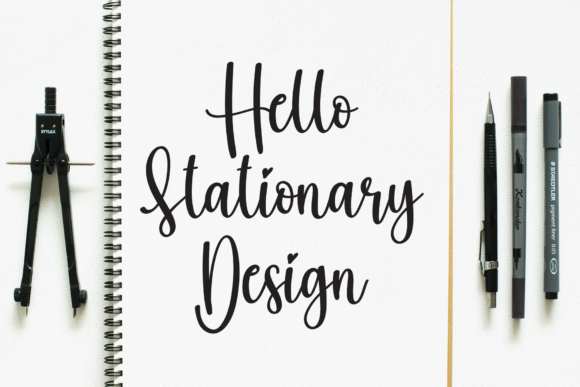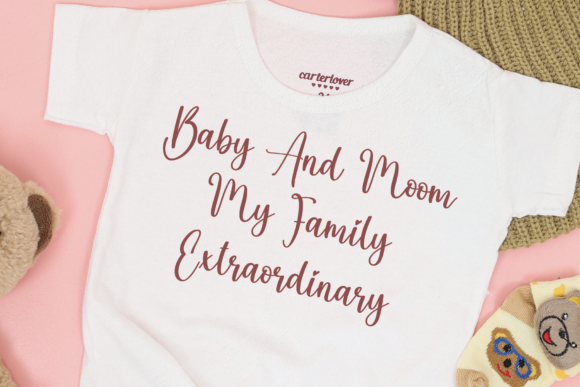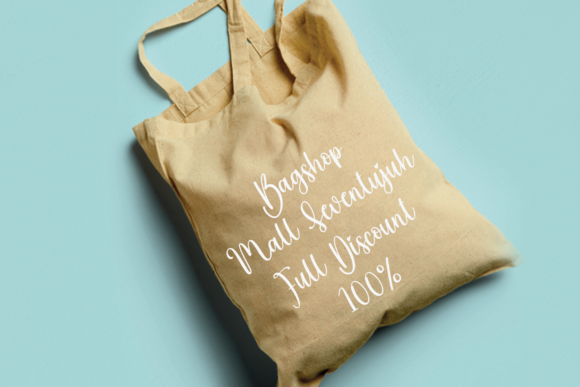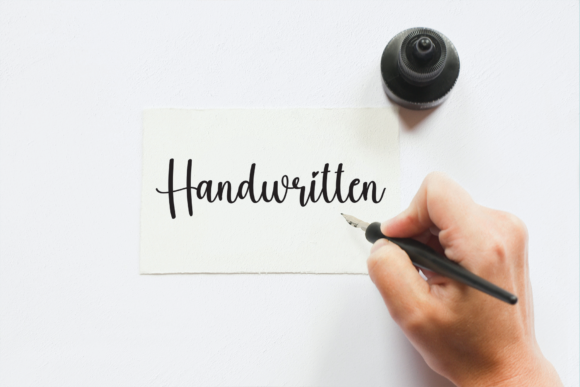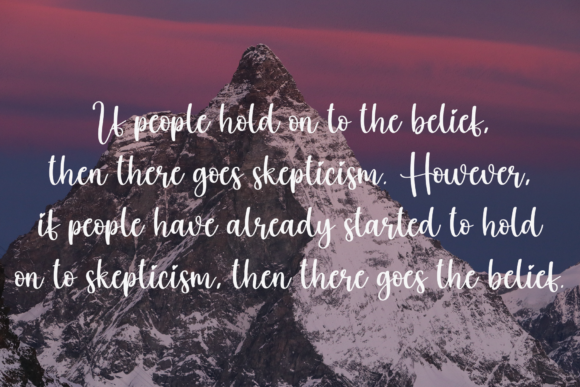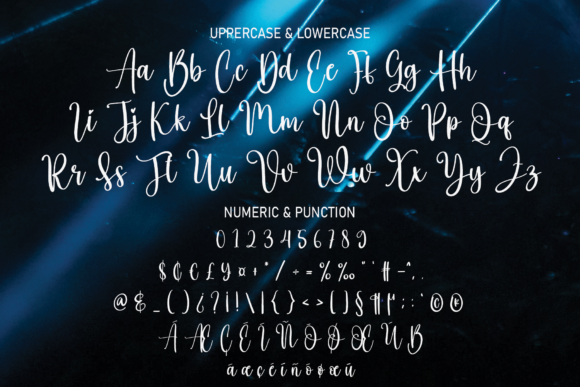
Introduction to Laserblue Font
Have you ever been working on a creative project, pouring your heart and soul into a design, only to realize that the perfect font is just out of reach? That’s where the Laserblue Font comes in – a sweet and fashionable script font that’s sure to elevate your design to the next level.
As a valuable resource for designers, the Laserblue Font is perfect for any branding project, from logos to t-shirt printing and beyond. Its unique style and versatility make it a must-have for any design project, whether you’re working on a free download or a high-quality commercial campaign.
Key Features of Laserblue Font
- High-quality font design suitable for creative projects and design resources, offering a unique and modern aesthetic.
- Features a sleek and futuristic design, ideal for use in graphic design, digital art, and other creative pursuits.
Honest Review: Laserblue Font
I recently stumbled upon the Laserblue Font, and I must say, it’s been a game-changer for my design projects. This high-quality font has been a valuable resource for me, and I’ve been able to use it in a variety of creative projects.
One of the things that stands out about the Laserblue Font is its transparent background, which makes it super versatile and easy to use. I’ve been able to use it on its own or layer it with other design elements to create some amazing visuals.
- High-quality design: The Laserblue Font is crisp and clean, making it perfect for any design project.
- Transparent background: This feature makes it easy to use the font in a variety of settings.
- ⚠️ Limited font styles: While the Laserblue Font is high-quality, it’s limited to a single style, which can be a drawback for some designers.
Overall, I’m really impressed with the Laserblue Font, and I would highly recommend it to any designer looking for a high-quality, versatile font. It’s been a valuable resource for me, and I’m excited to see how I can continue to use it in my future design projects.
Tips for Getting the Most Out of Laserblue Font
To get the most out of the Laserblue Font, use it with a transparent background to create a high-quality design. Experiment with different font sizes and colors to find the perfect combination for your creative project.
The Laserblue Font is perfect for creating eye-catching headings, titles, and labels in various design projects, including:
- Social media graphics and advertisements